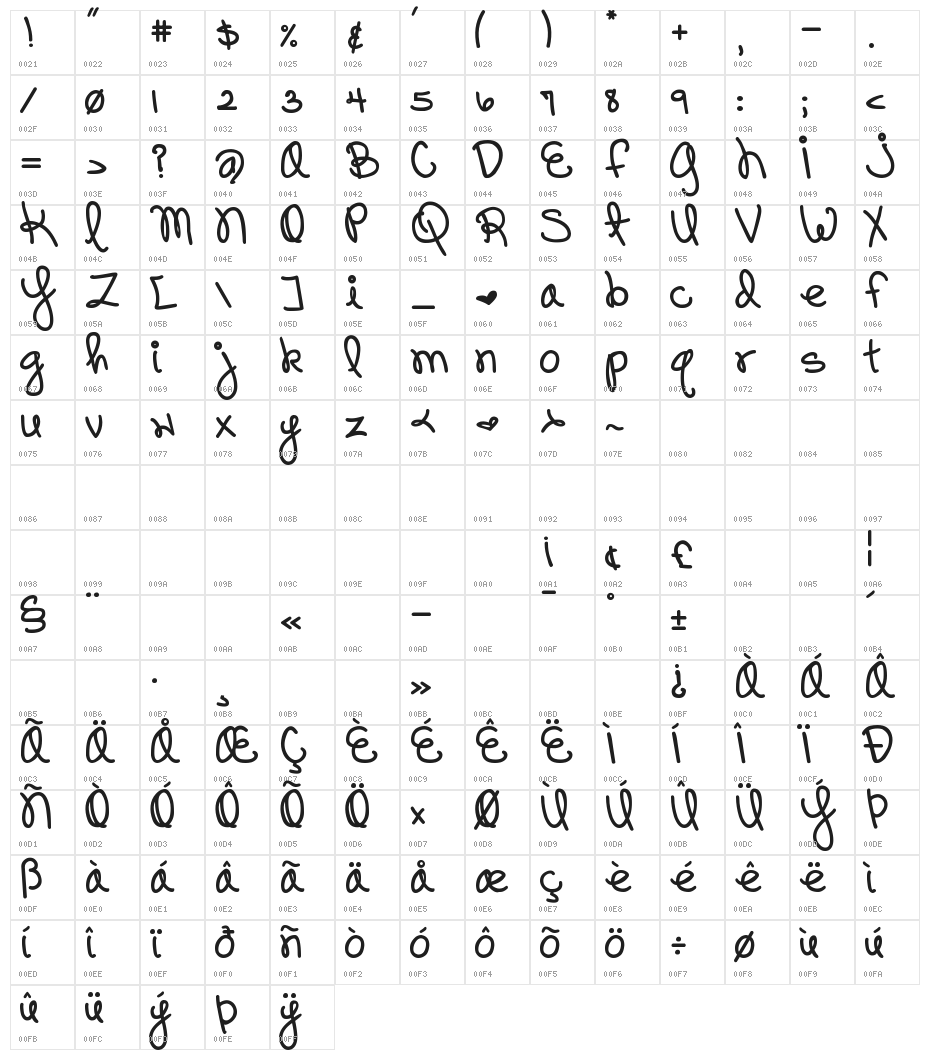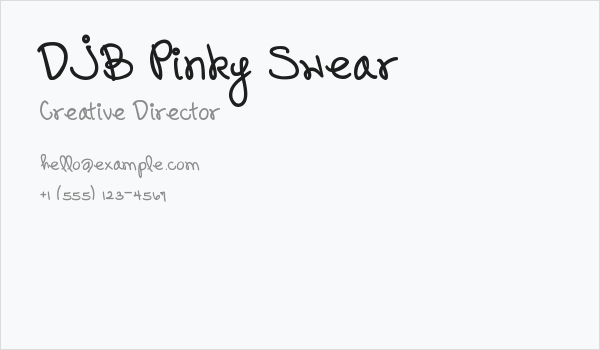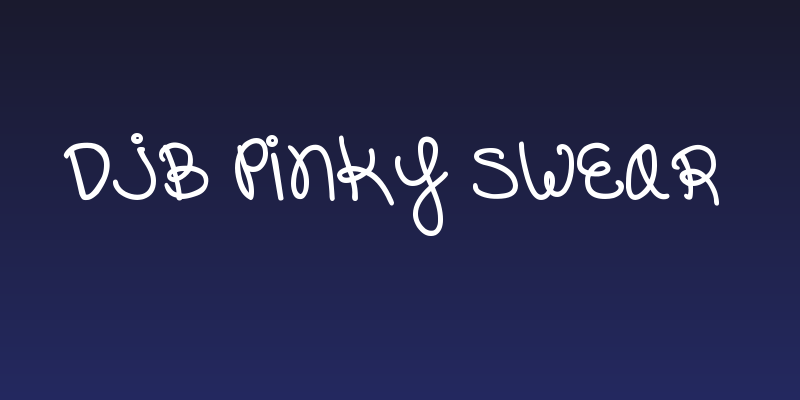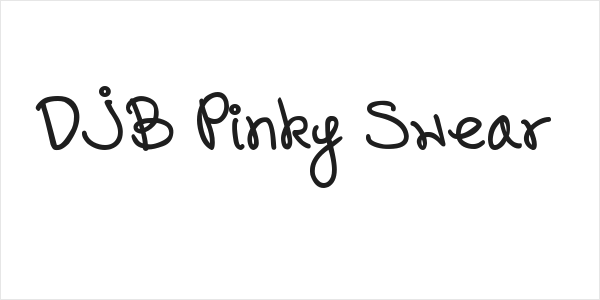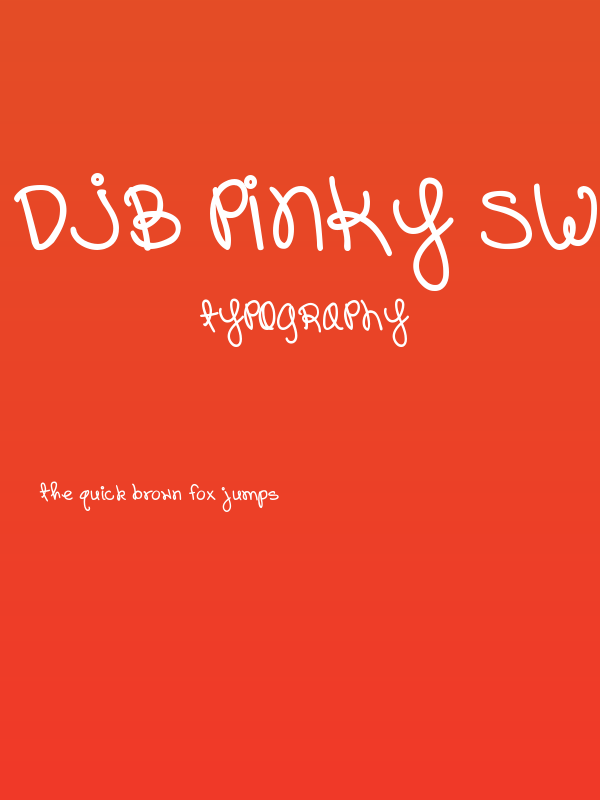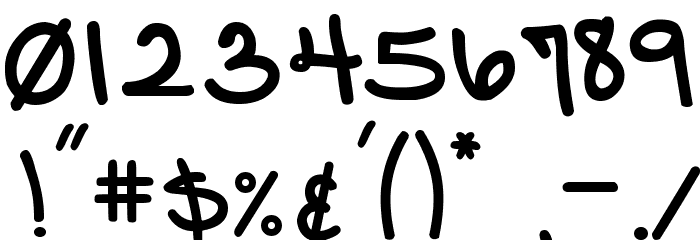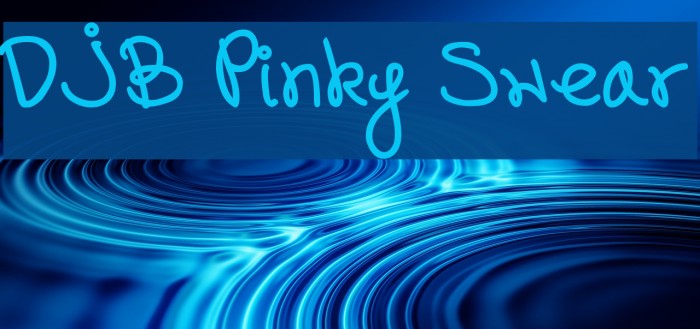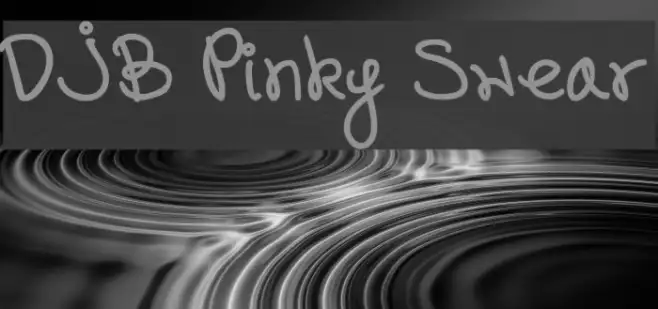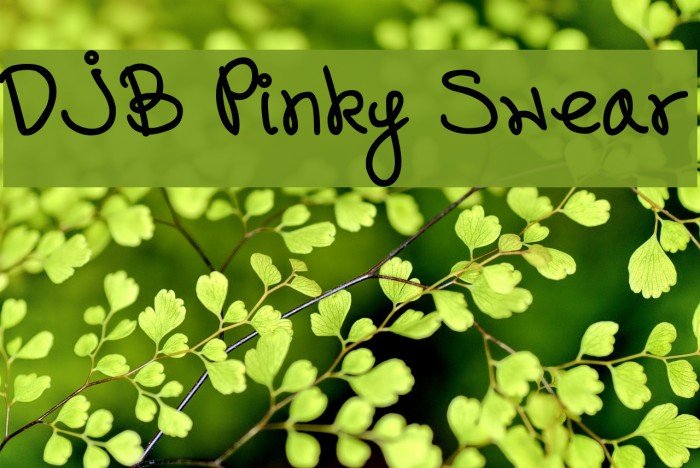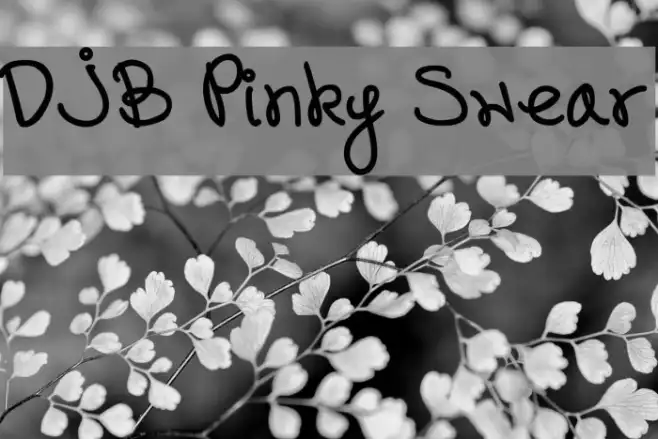
DJB Pinky Swear Font
DJB Pinky Swear Description
This playful and whimsical font features a handwritten style with a casual and friendly appearance. The letters are rounded and slightly irregular, giving it a personal touch that mimics natural handwriting. The strokes are consistent in thickness, providing a uniform look across all characters. The font includes both uppercase and lowercase letters, numbers, and a variety of special characters, making it versatile for different uses. Its informal style is perfect for projects that require a human touch, such as invitations, greeting cards, or personal branding.
| Overall Style | Casual |
| Use Case | Invitations, Greeting cards, Personal branding |
| Proposed Projects | Ideal for invitations, greeting cards, personal branding, and any project needing a personal touch. |